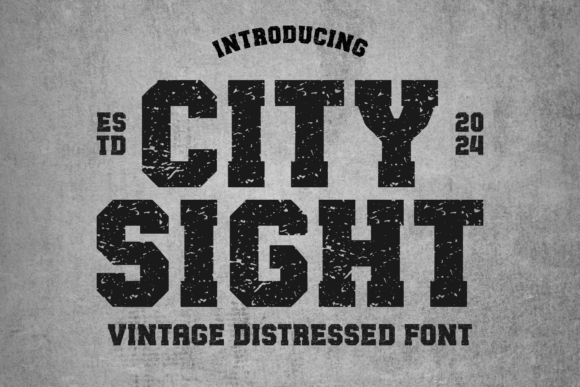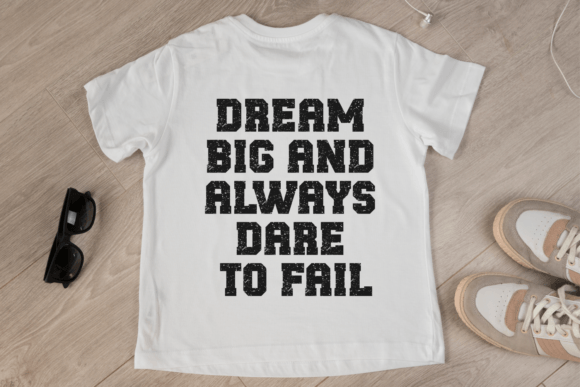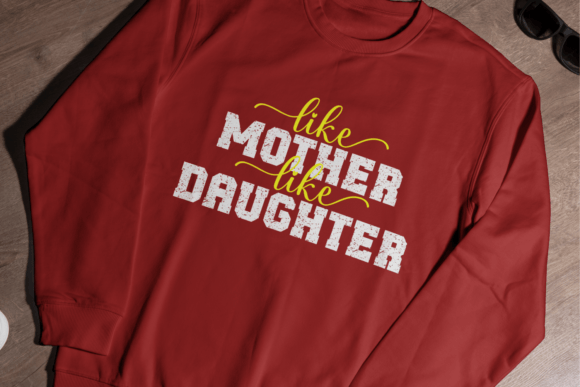
City Sight Font
City Sight is a font that looks old and worn, like it’s been around for ages. Its letters have a vintage style, as if they’ve seen the hustle and bustle of city life. The font gives off a nostalgic vibe, perfect for projects that want to evoke a sense of history or urban charm.